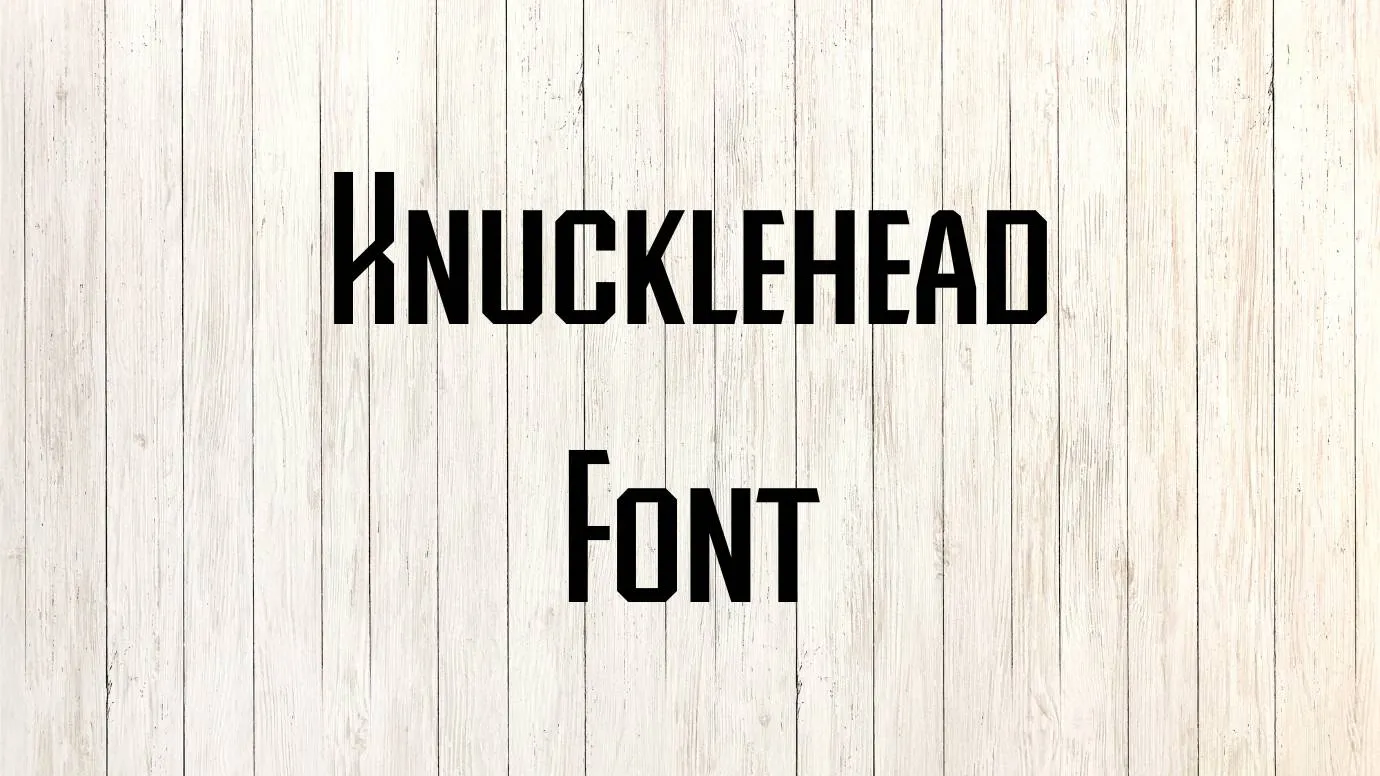
Knucklehead Font Family was designed by Headfonts.  Only the OTF (Open Type) format is obtainable for use in the demo version. Its modern look is coherent and appropriate for fancy design projects.
The designer of this typography gives the free facility of its online generator tool. This fantastic font has many similar fonts that are available for pairing with this typeface like royal knights font which also comes in also display family.
Knucklehead Font